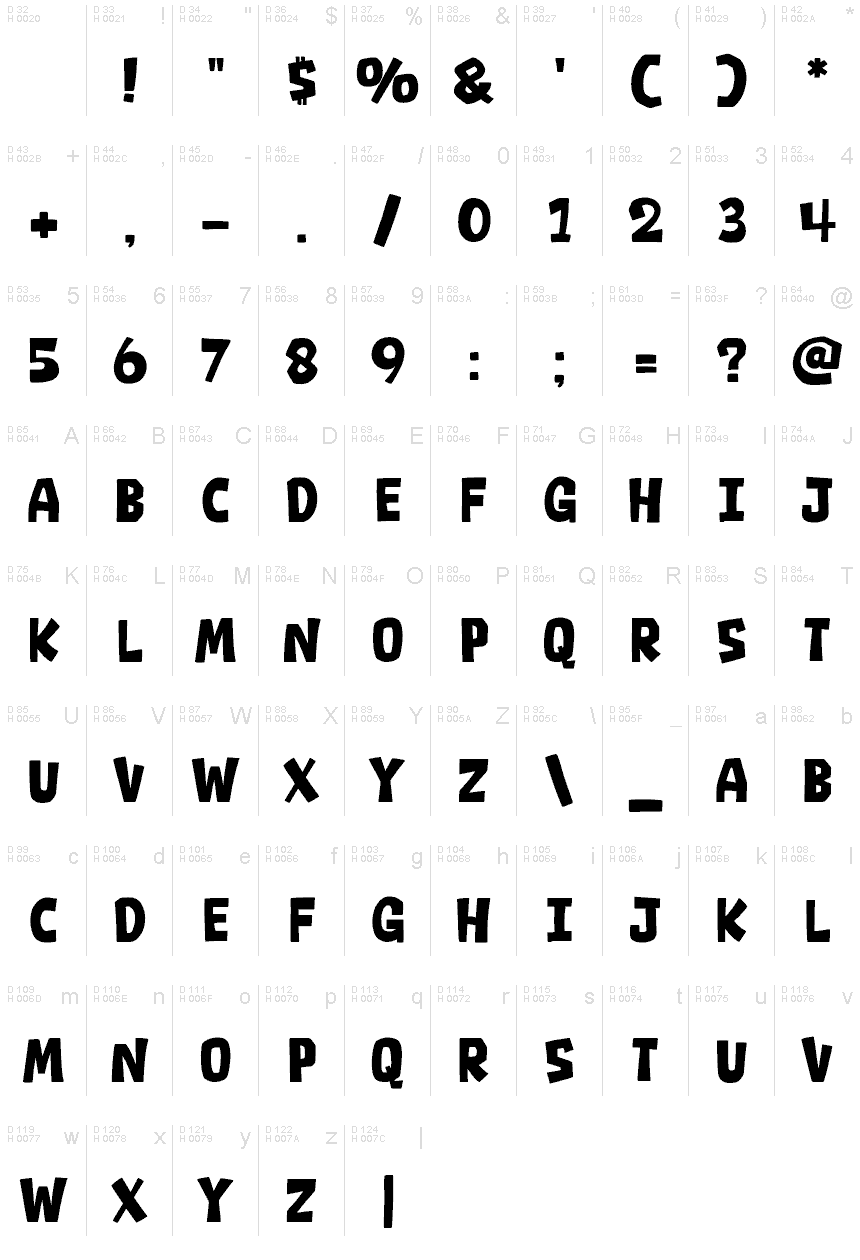
Besty Land
Besty Land font by Khurasan is a free cartoon display font that fuses an expressive design with a casual attitude. Its chunky, hand-drawn aesthetic features irregular shapes and distinctive bold weight. The playful and cheerful appearance of this typeface is completed with some potential retro influences.
The cartoonish style of Besty Land makes it ideal for comic books, video games, kids’ book covers, and stationery designs. It can be used in logos for toy shops or brands, creative identity packaging designs, invitations for birthdays and parties as well as posters or billboards for fun cultural events.